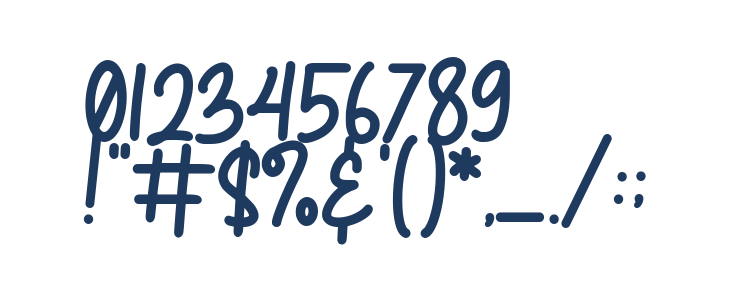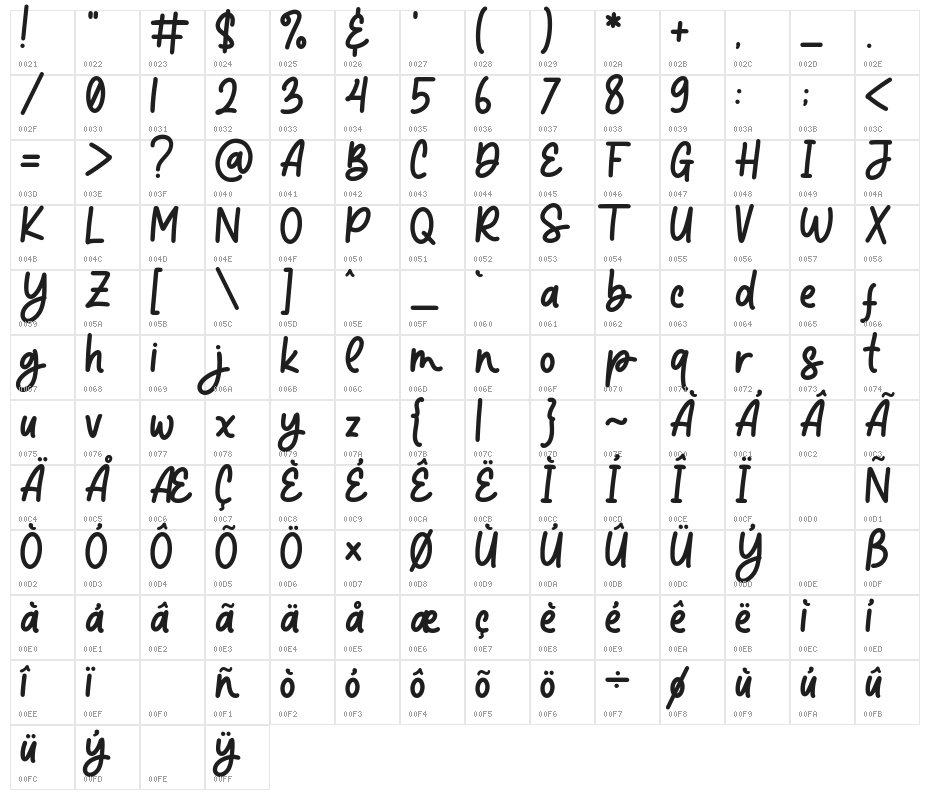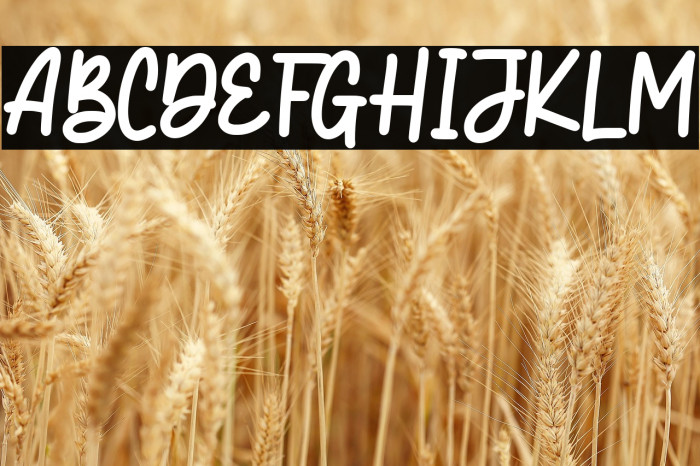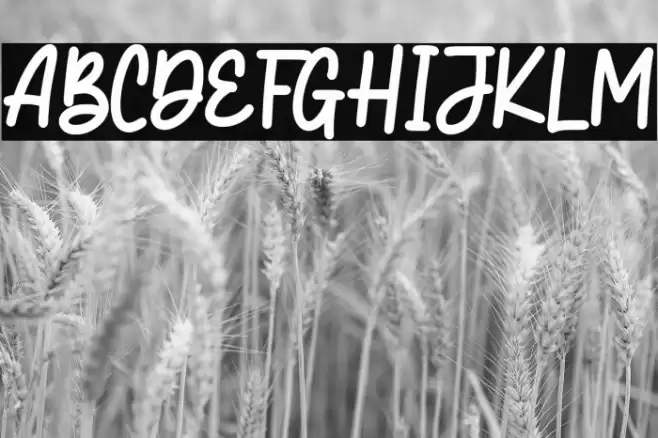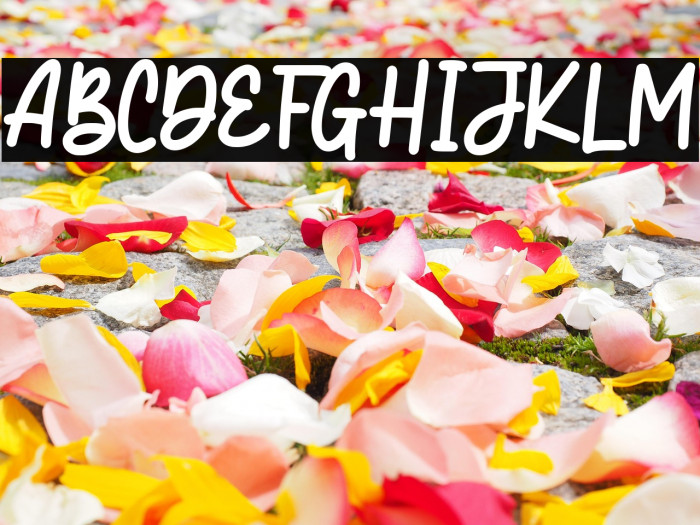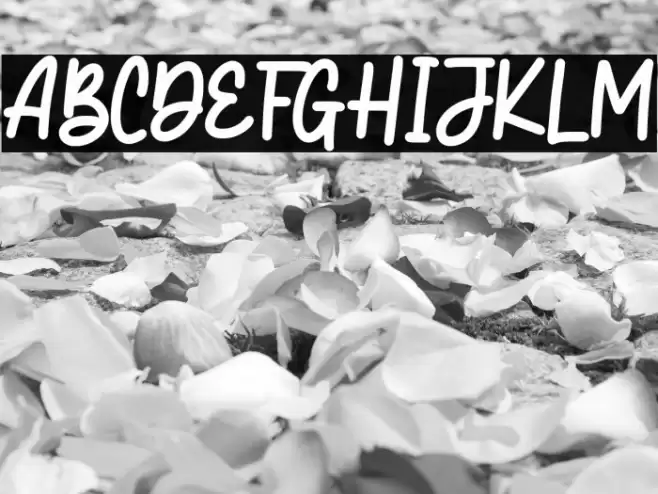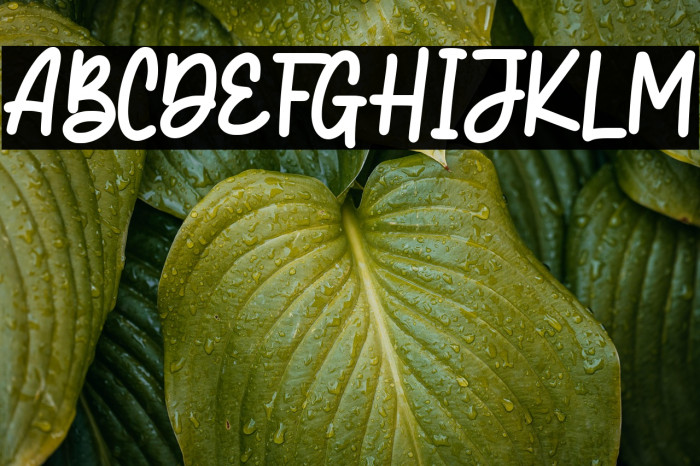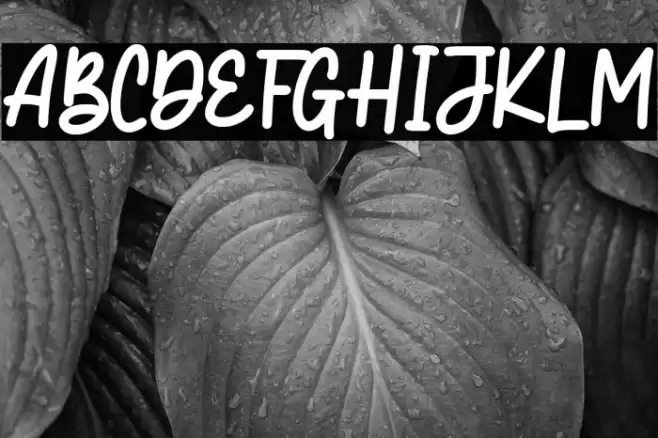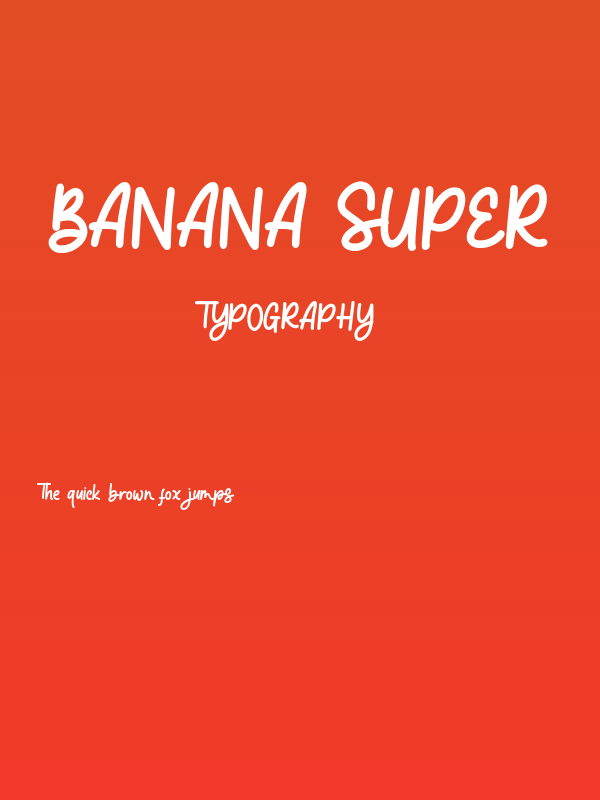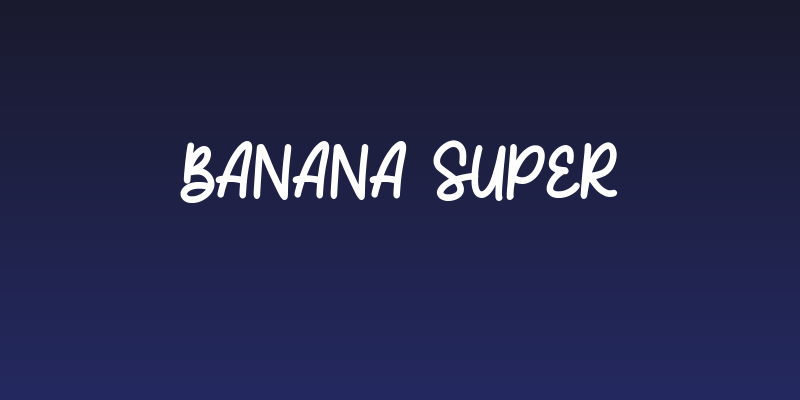
Banana Super Font
Banana Super Description
This font features a playful and energetic handwritten style, characterized by its bold and flowing strokes. The letters are slightly slanted, giving a dynamic and informal appearance. The uppercase and lowercase characters maintain a consistent style, with rounded edges and a smooth flow between strokes. The numerals and special characters complement the overall design, maintaining the same lively and casual aesthetic. This font is well-suited for projects that require a personal touch or a sense of whimsy.
| Use Case | Logos, Headlines, Informal Invitations |
| Proposed Projects | Ideal for greeting cards, playful branding, children's books, and social media graphics. |